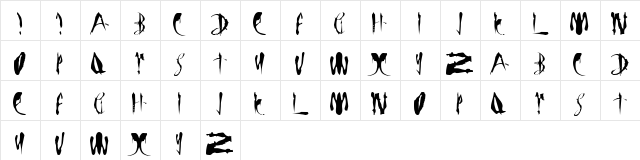
LMS Bloody Brujah Regular
Design Context for LMS Bloody Brujah Typeface
LMS Bloody Brujah leans into the macabre with letterforms designed to disturb and intrigue in equal measure.
Ideal for Halloween projects, horror film titles, haunted house signage, and dark editorial design.
Font Pairing: Pair with a clean neutral sans-serif for body copy to let LMS Bloody Brujah's character lead without overwhelming the composition.
Pro Tip: LMS Bloody Brujah works best as a headline or focal element. Pair it against plain, neutral body text to amplify the contrast.